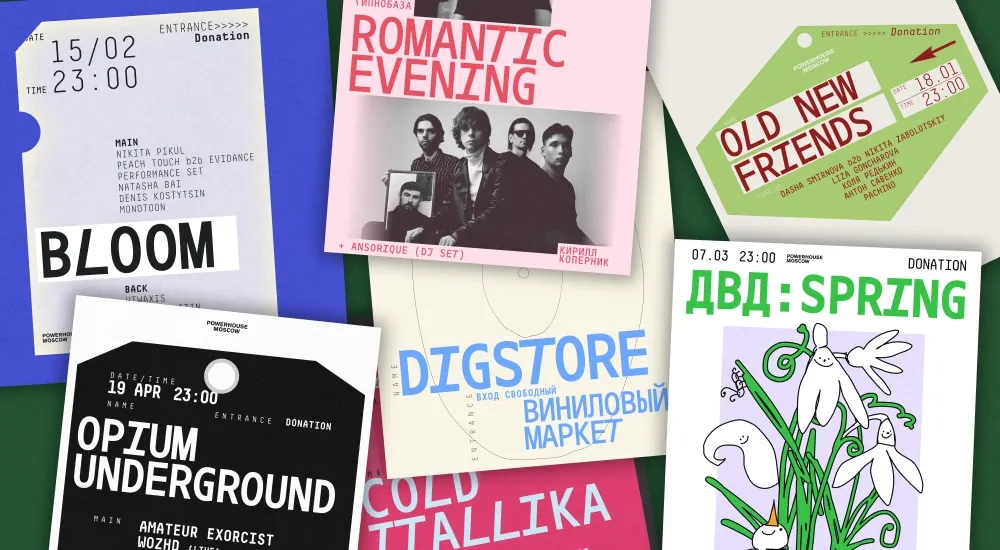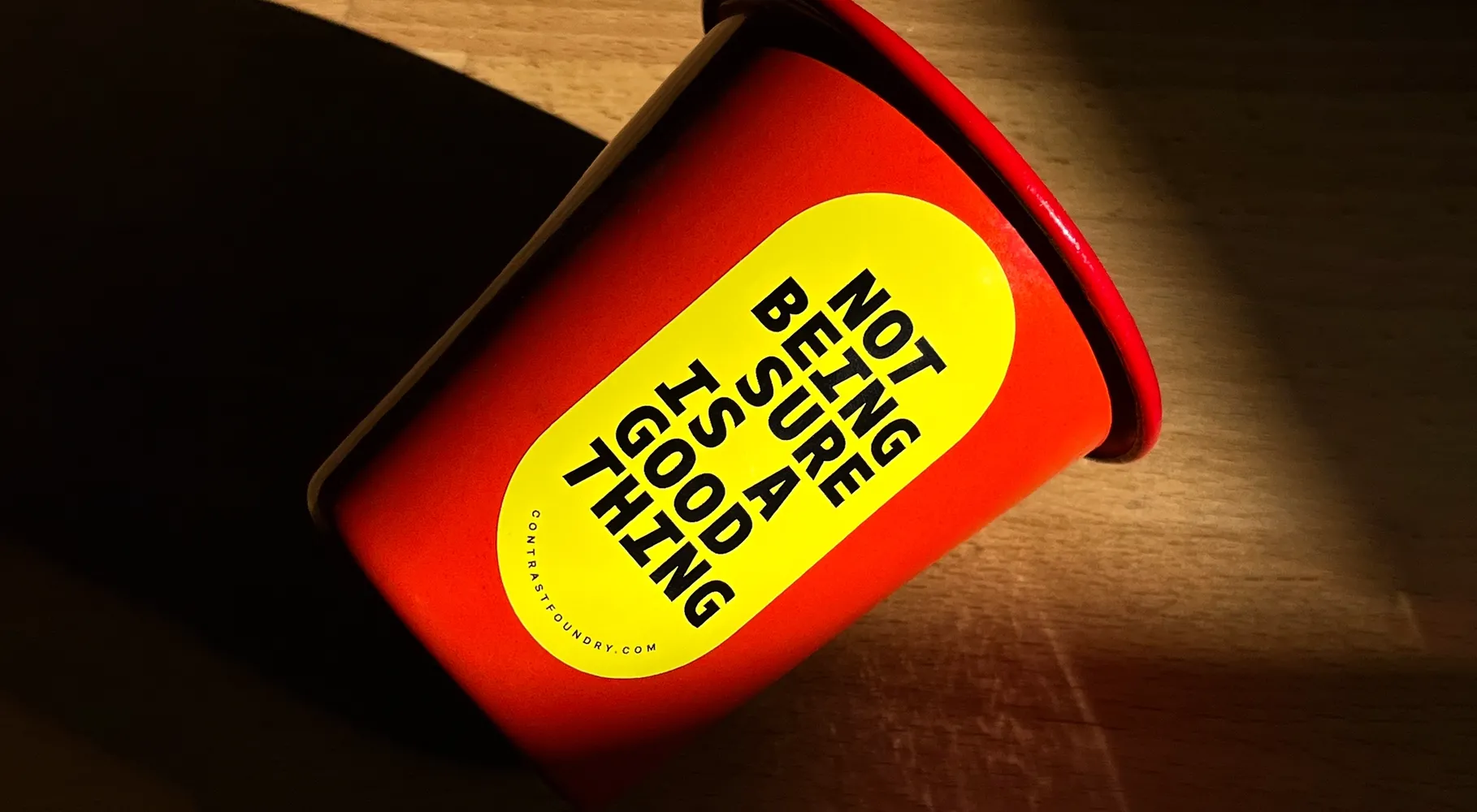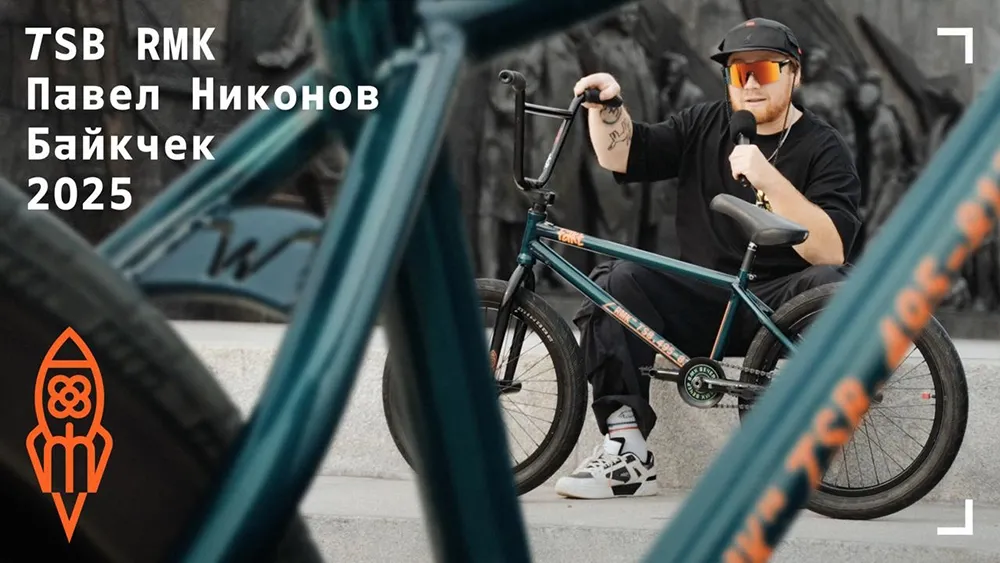
CoFo Drifter Variable
CoFo Drifter
About CoFo Drifter
CoFo Drifter is a monospaced typeface that escapes digital coldness. It’s a charismatic personality, not alien to self-discipline and a love for meticulous technical work. To solve the classic problem of all monospaced typefaces—the large white spaces around letters with a single vertical stroke (such as i, l, т, г), we designed these verticals to be slanted. The active diagonals in the upright typeface behave provocatively and catch the eye. However, Drifter’s boldness does not turn into rudeness; on the contrary, the open shapes of the characters and the vertical cuts of the strokes speak of a sociable and friendly nature. Presenting expressiveness under the guise of technicality, CoFo Drifter is ready both for the leading role in branding and for the meticulous typographic work with other typefaces.